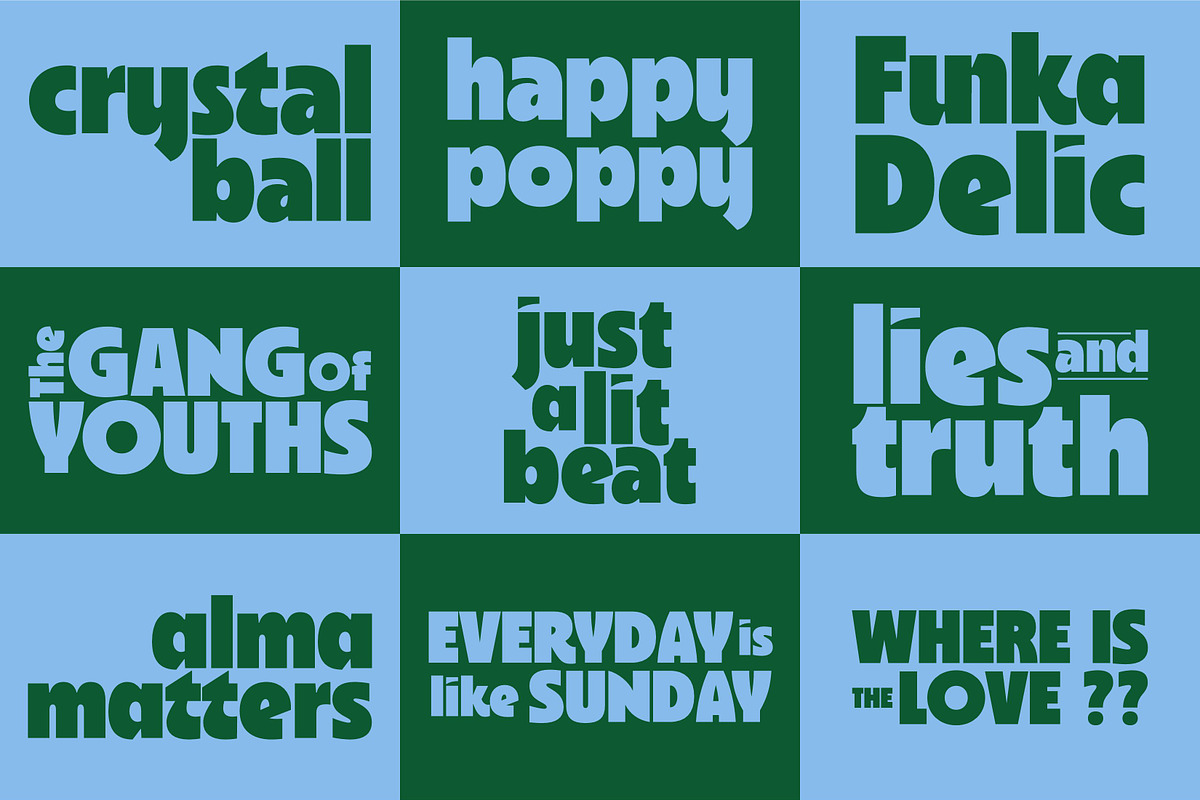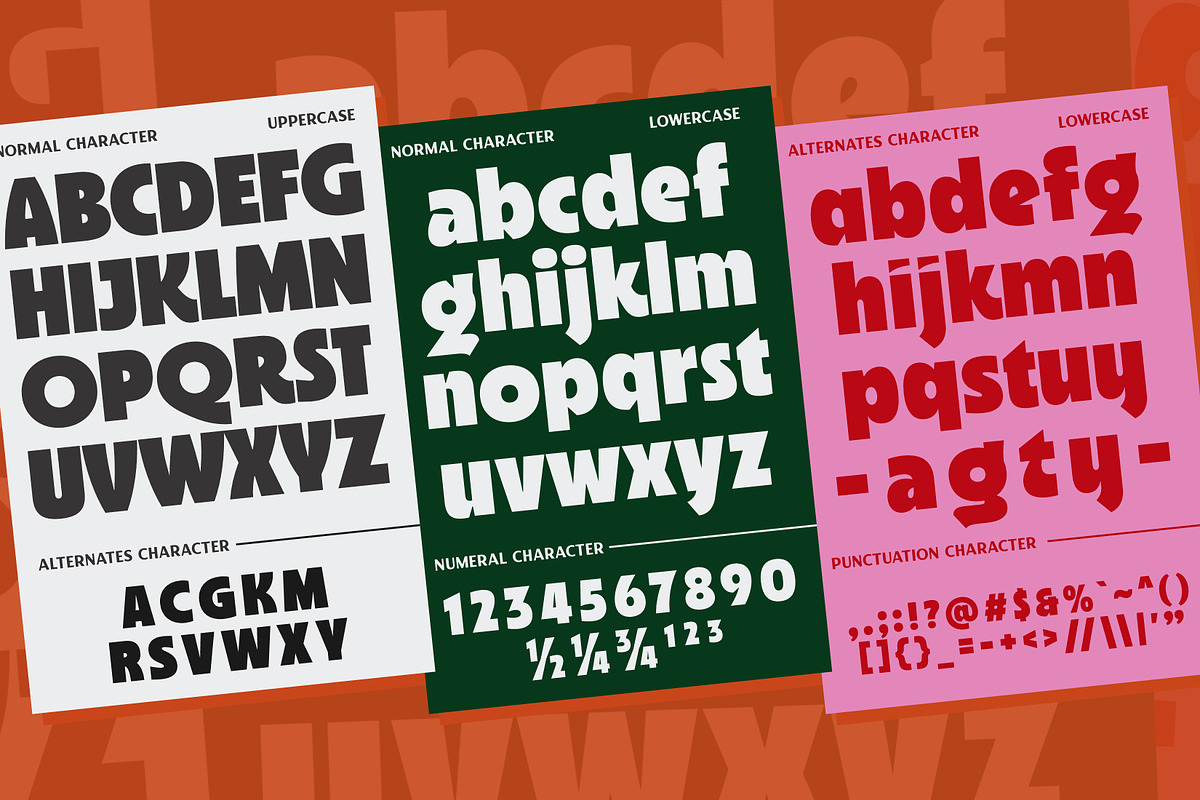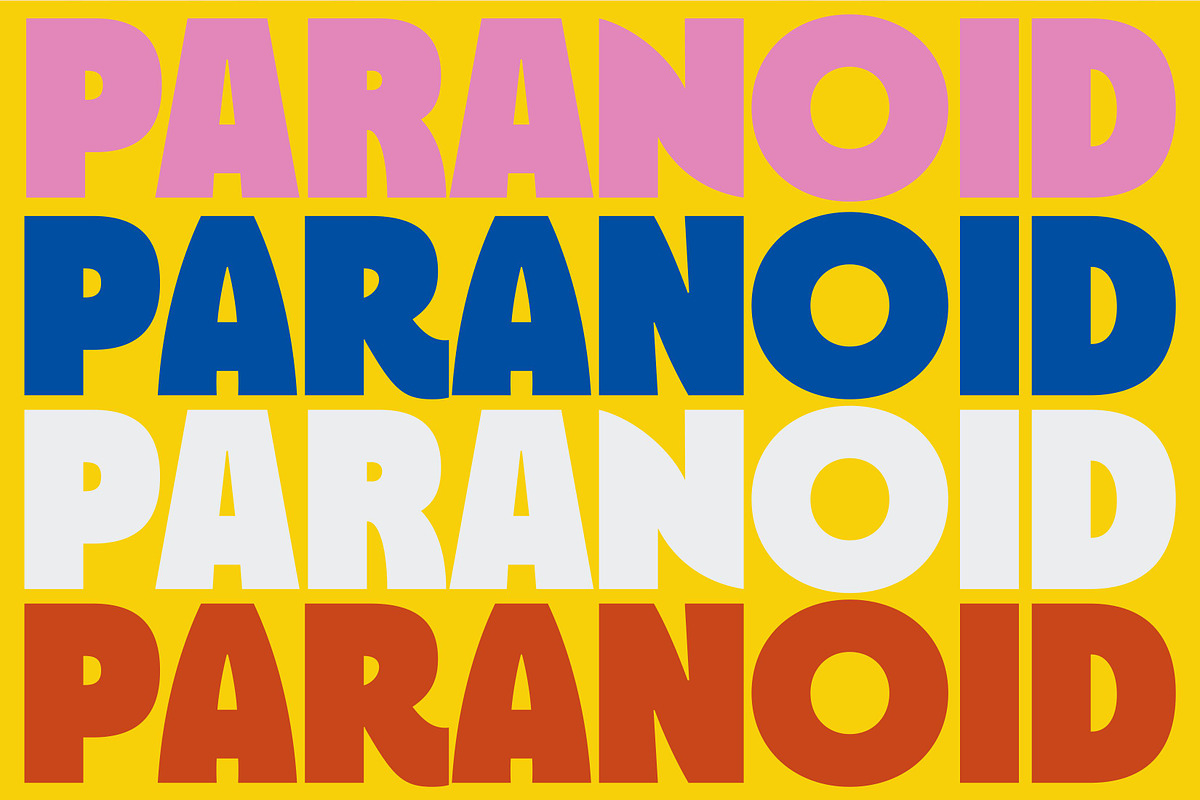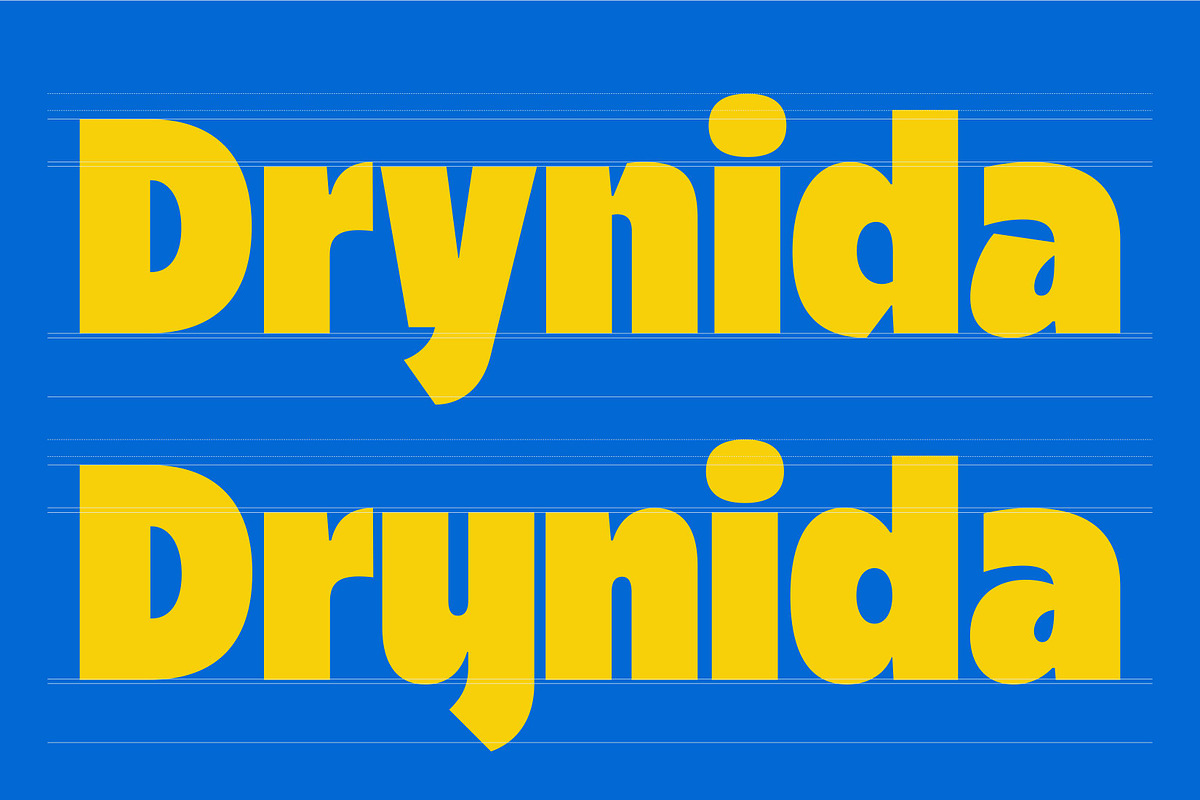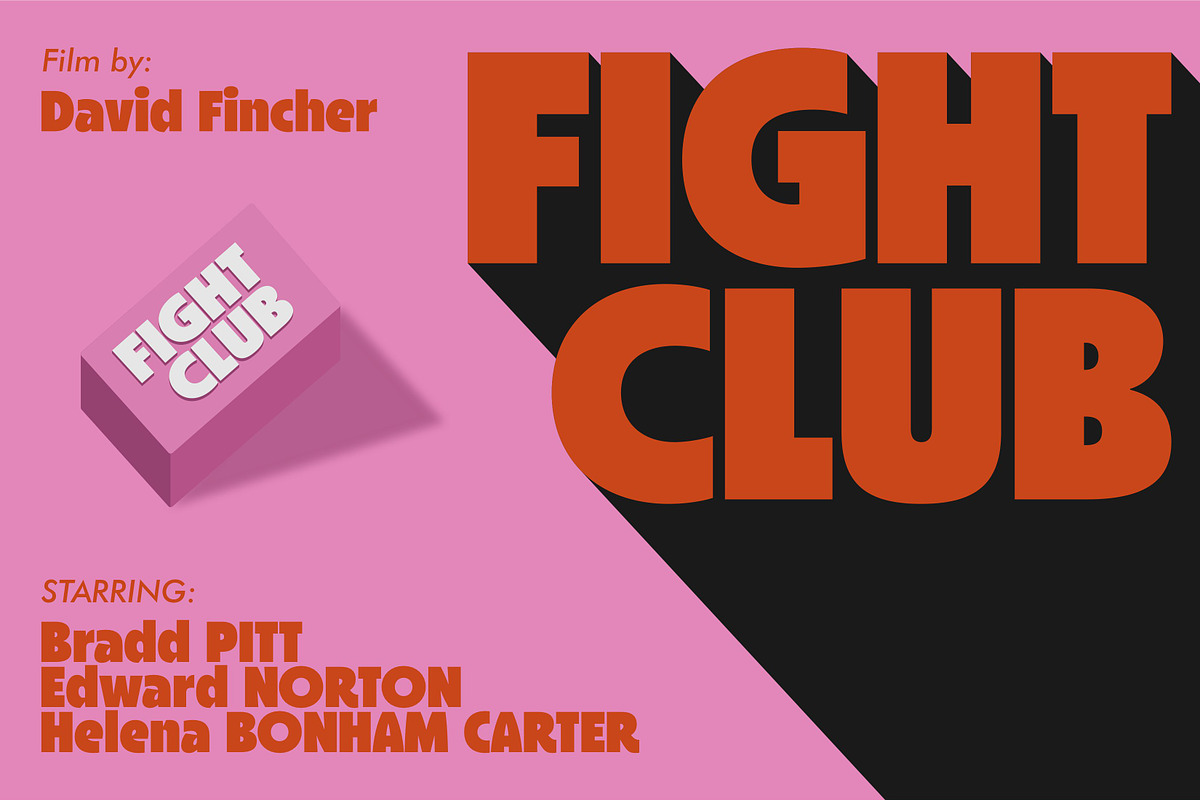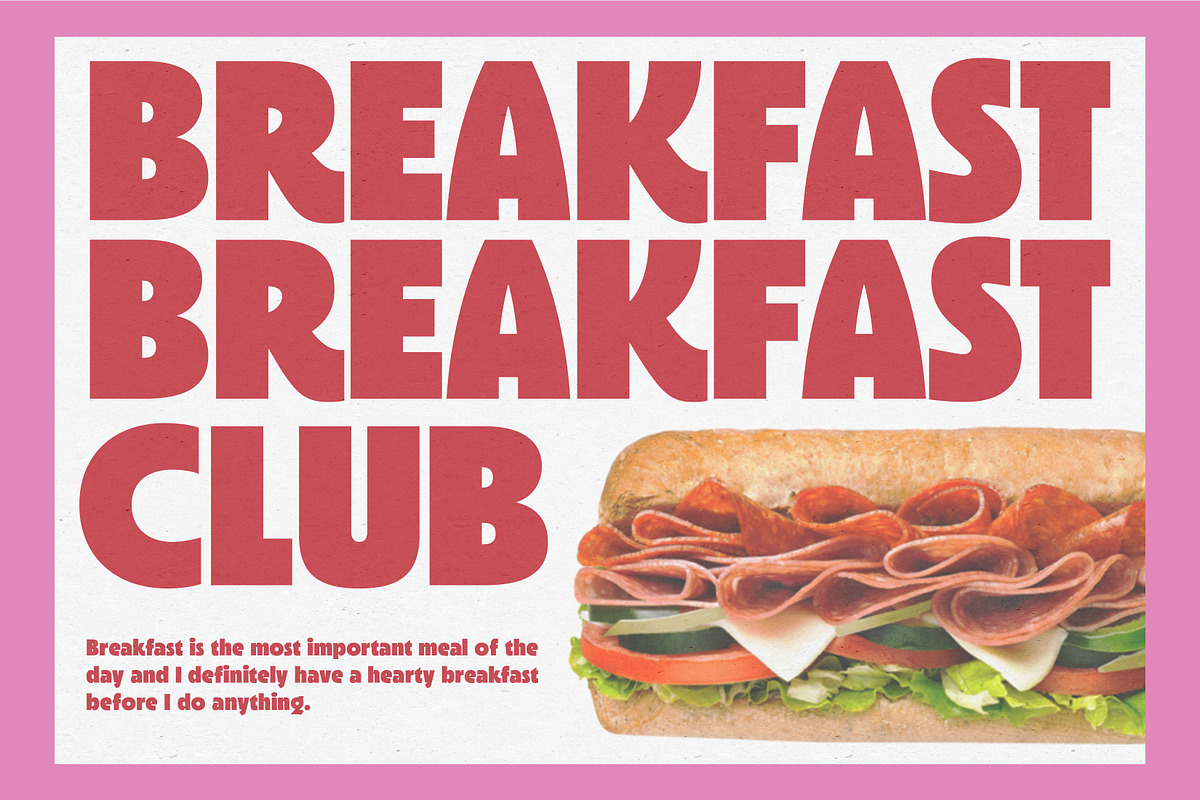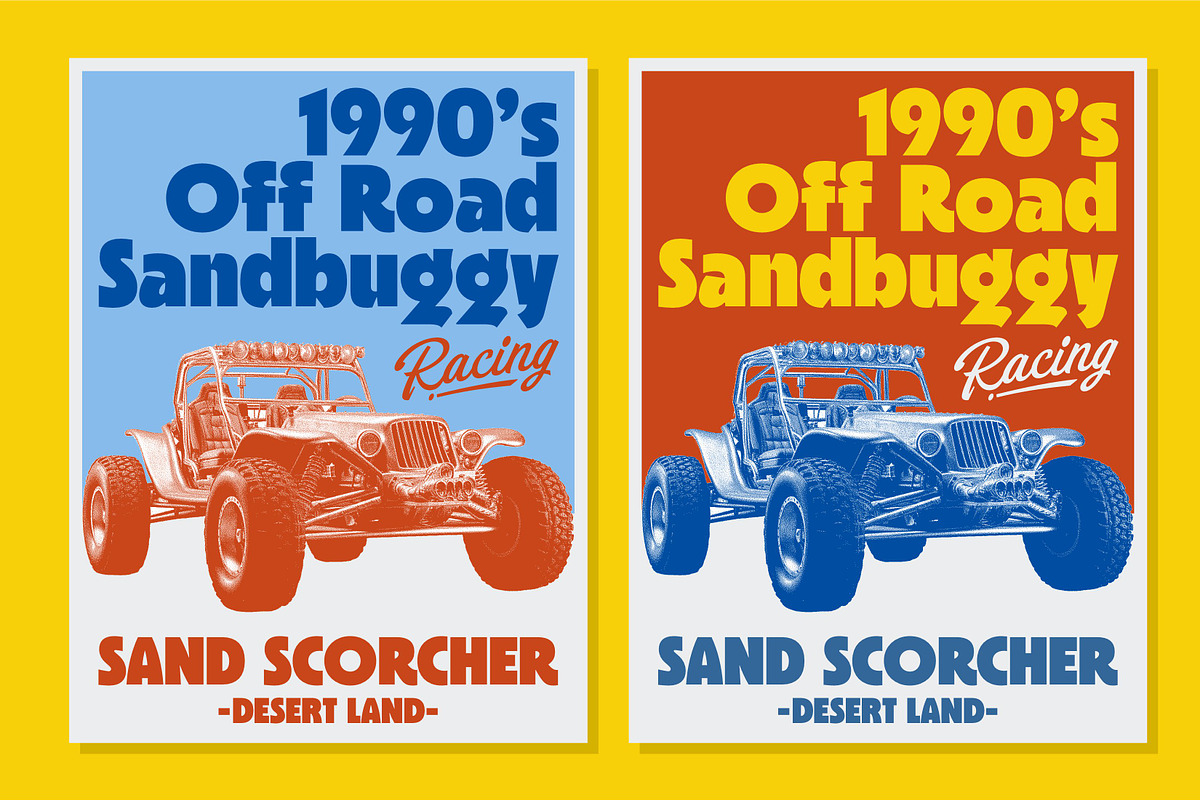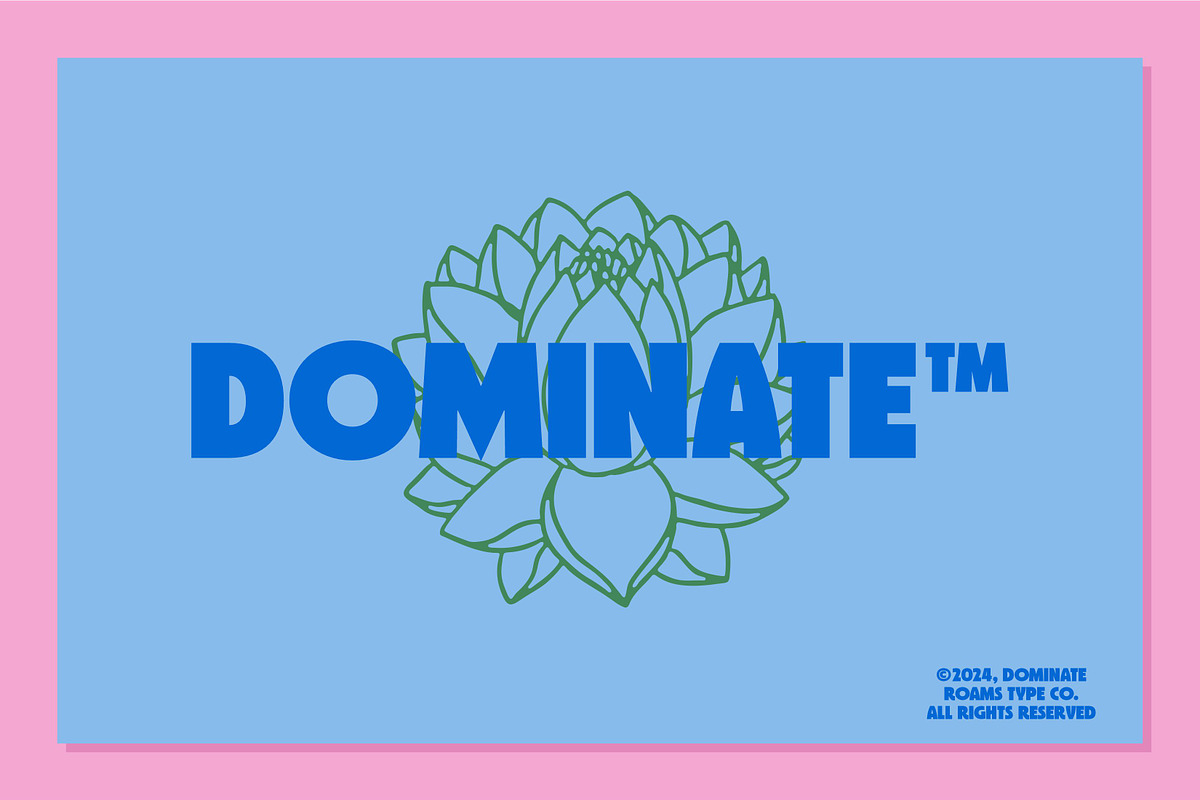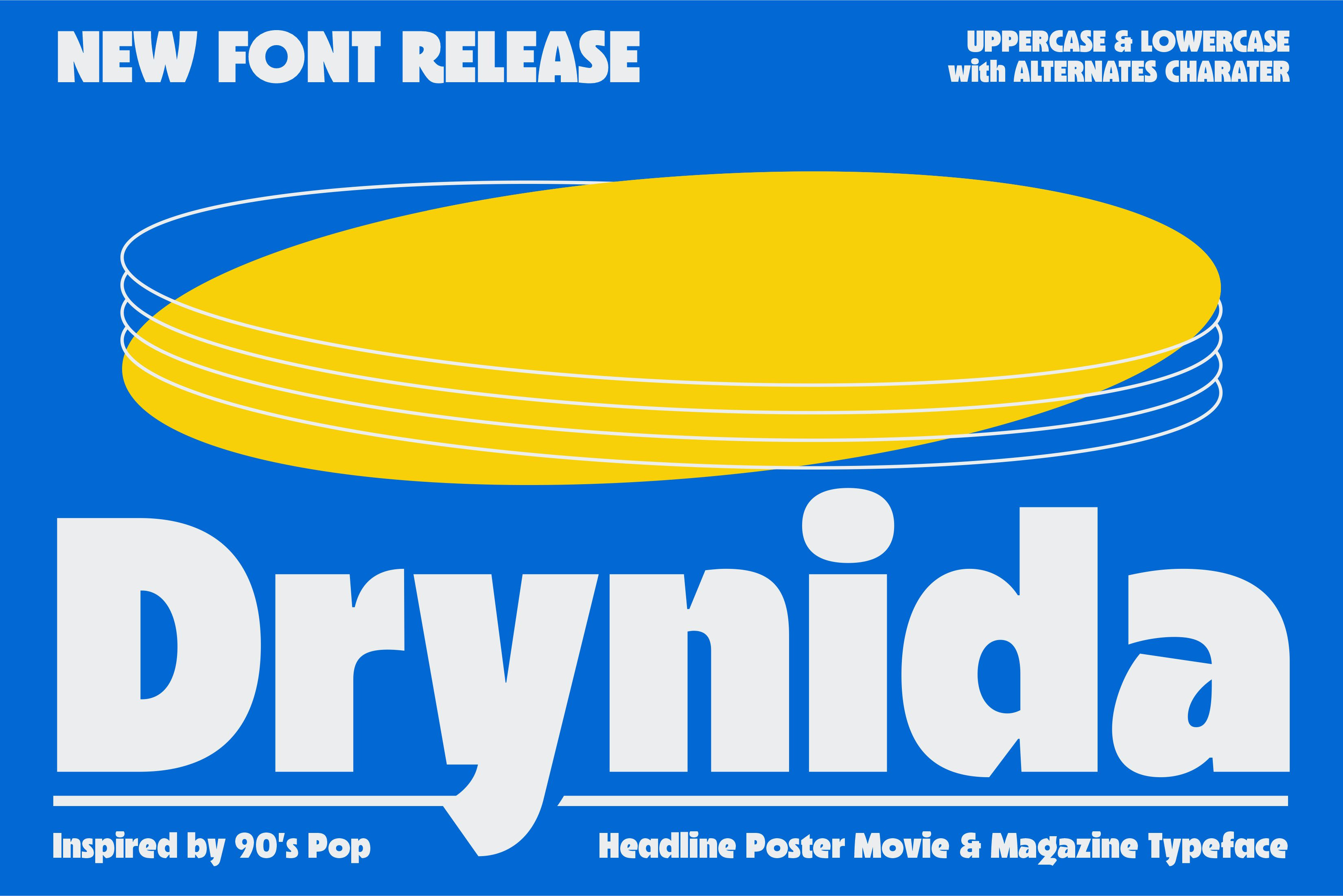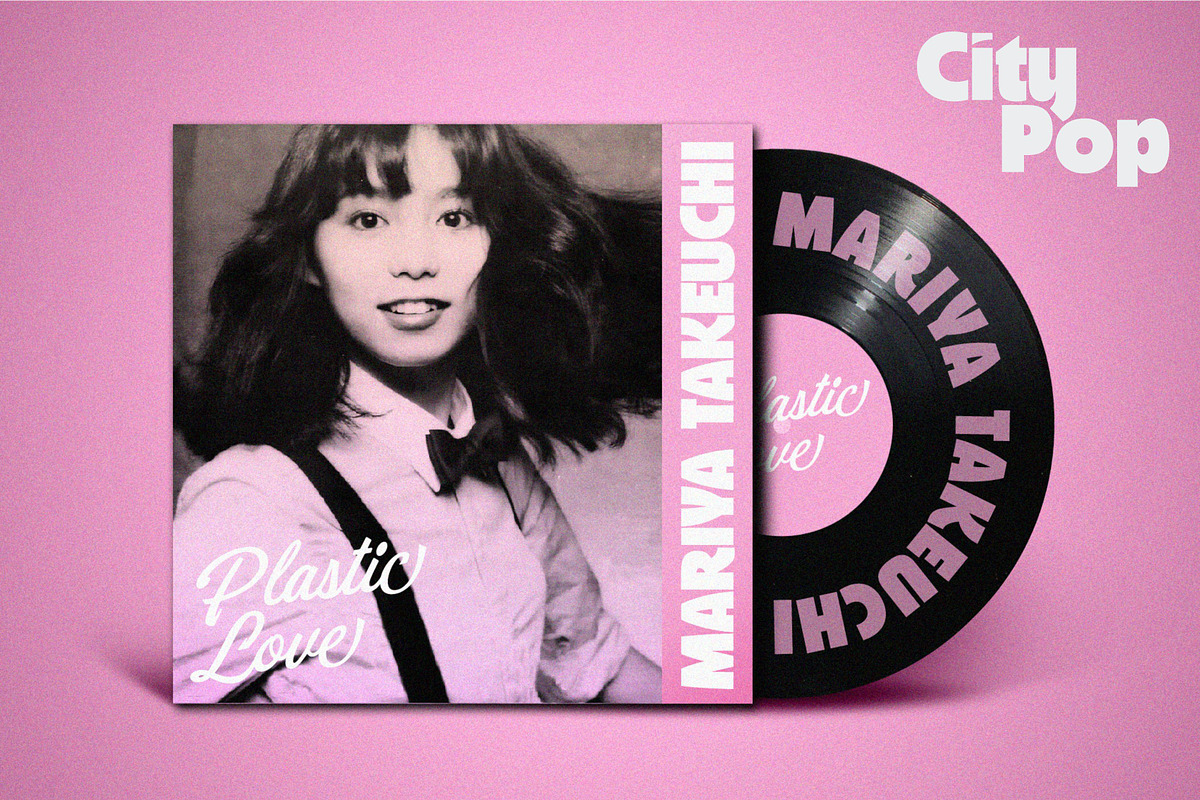
Drynida - 90’s Pop Headline font
Drynida
Modern Vintage Sans Serif w/ Black Typeform. Inspired by 90's Pop Headline Poster Movie & Magazine Typeface.
This font is suitable for graphic designs such as Poster, logotypes, merchandise, printed stickers, and other branding needs.
- Include Alternate Characters
| Uppercase & Lowercase | Numerals & Punctuation | Ligatures | Multilanguage support